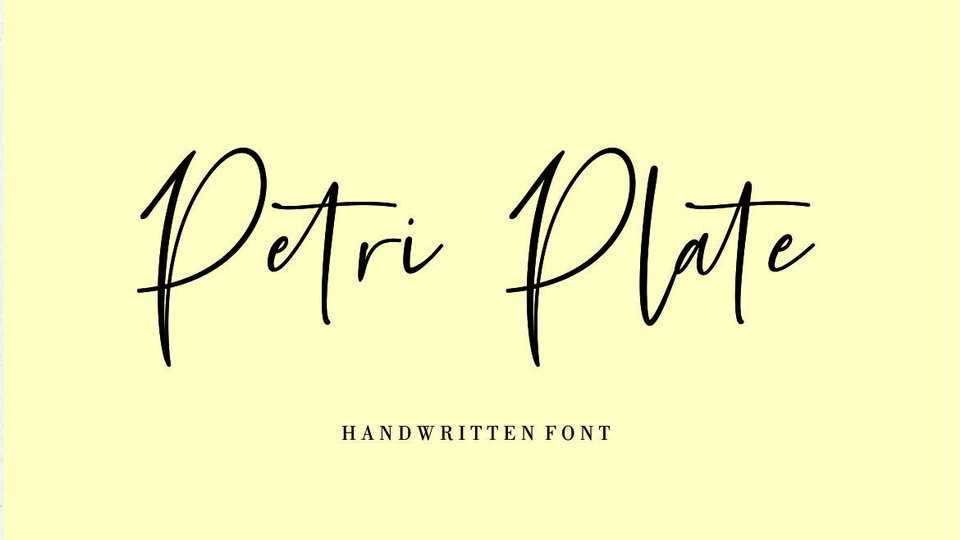
Download Petri Plate font, a stylish handwritten signature style font with 70 ligatures to make your design unique. Perfect for logo, branding, invitation, tittle, wedding designs, social media posts, photography watermark, special event, magazine,web design,etc.
Designer: Fikry Alif